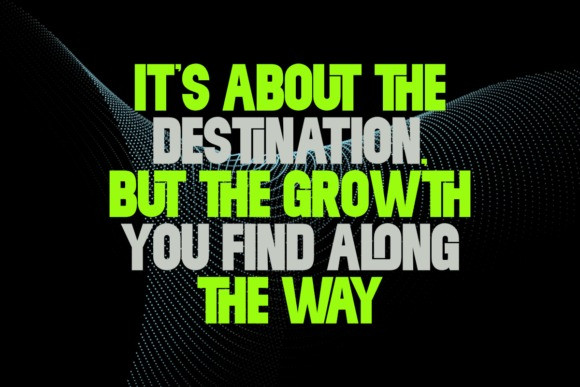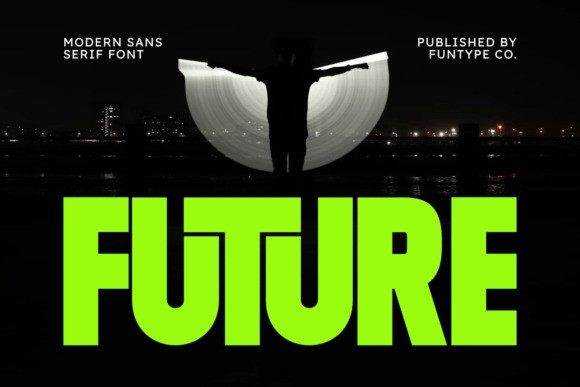
Future Sans Font
Future Sans Font is a bold and modern sans-serif font designed with clean lines and strong geometric shapes. Its futuristic look makes it perfect for impactful headlines, posters, branding, advertising, and digital projects. With its striking and contemporary style, Future is ideal for logos, magazine covers, sports designs, and social media graphics that demand attention and a professional edge.